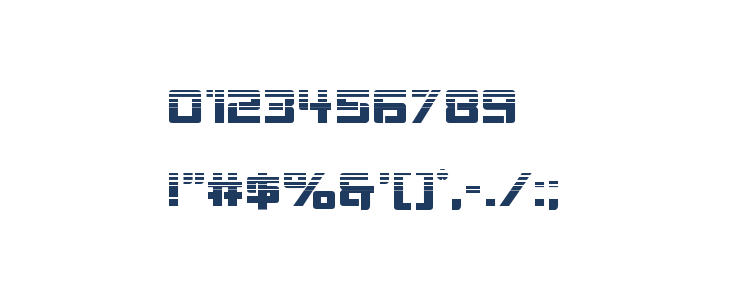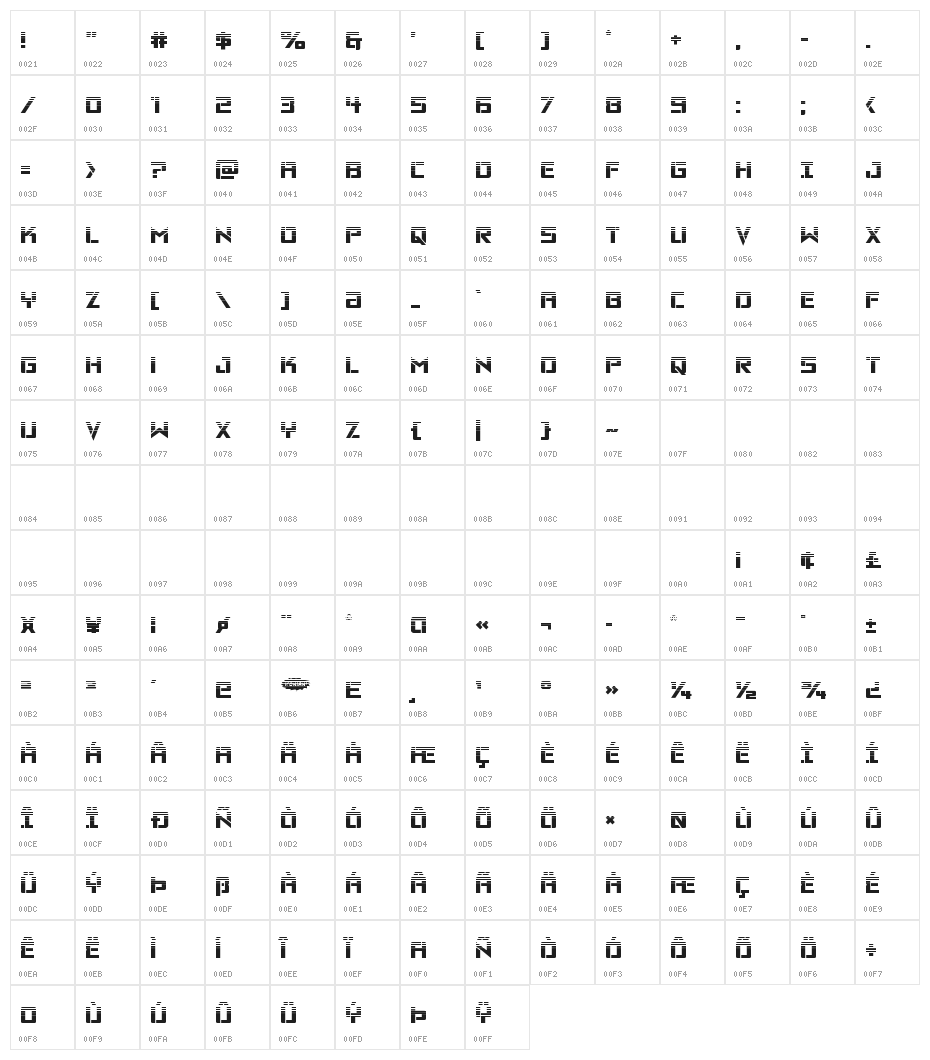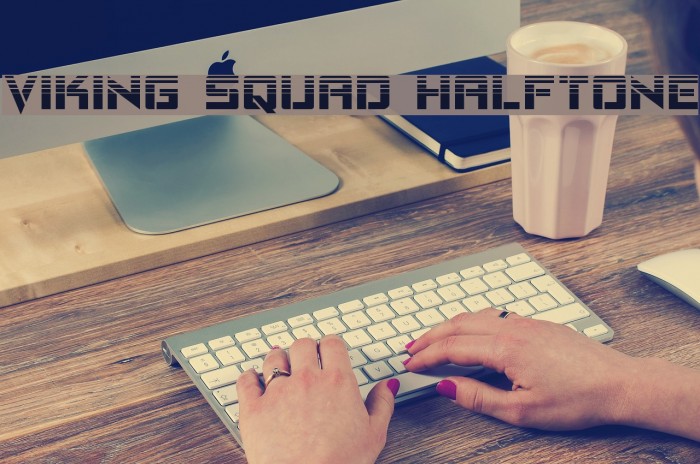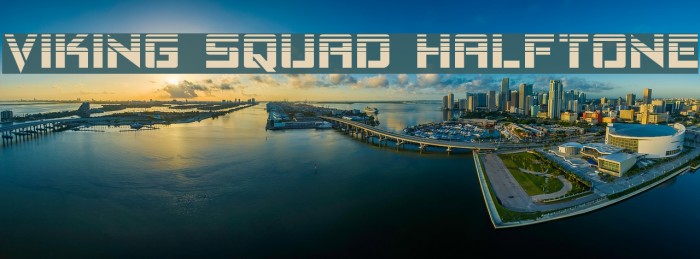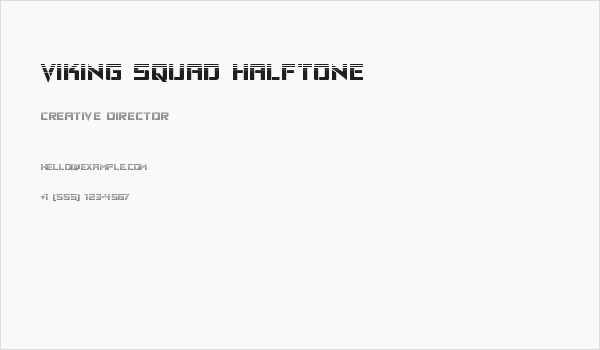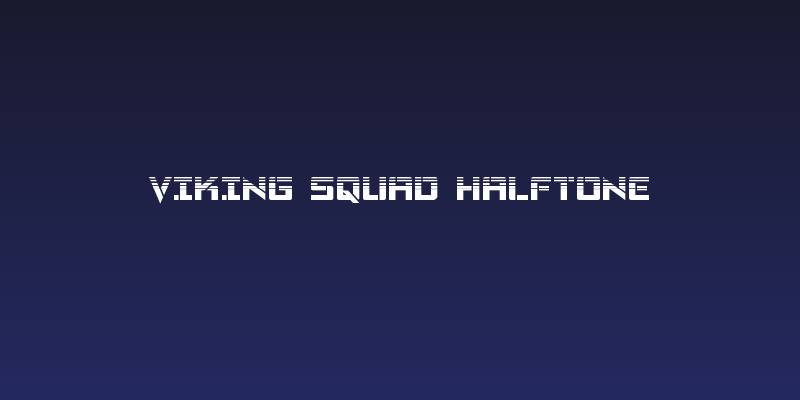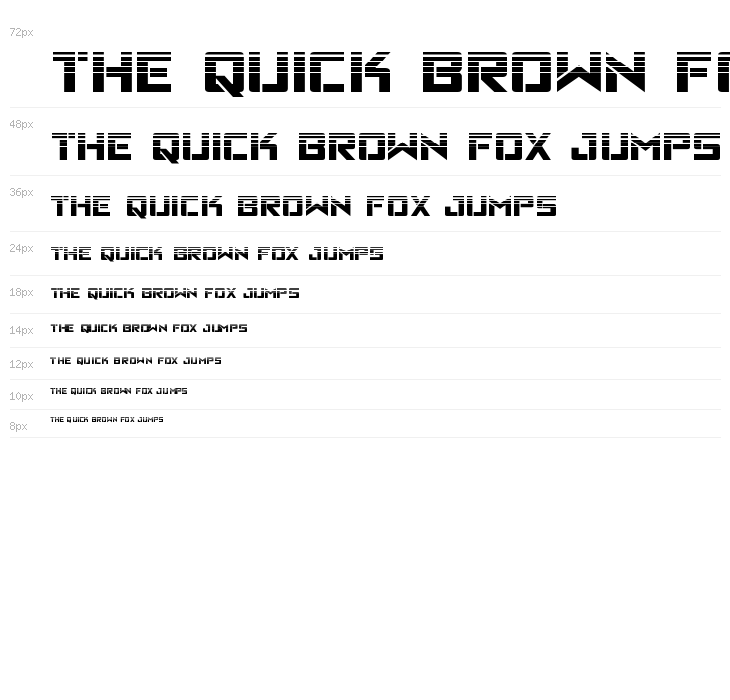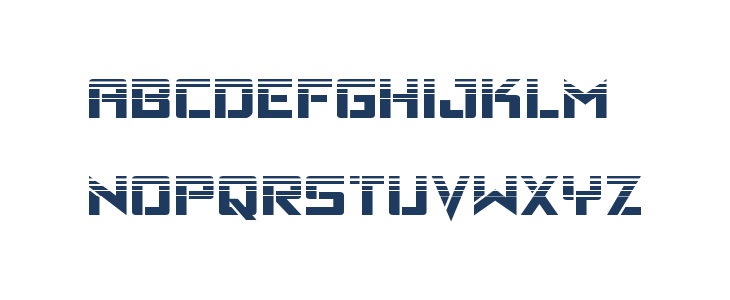
Viking Squad Halftone Font
Viking Squad Halftone Description
This font features a bold, geometric design with a halftone effect that gives it a unique, modern appearance. The characters are constructed with a series of horizontal lines that create a sense of movement and depth. The uppercase and lowercase letters maintain a consistent style, with sharp angles and a futuristic aesthetic. Numbers and special characters follow the same design principles, ensuring uniformity across all glyphs. The font's distinct style makes it suitable for projects that require a strong visual impact.